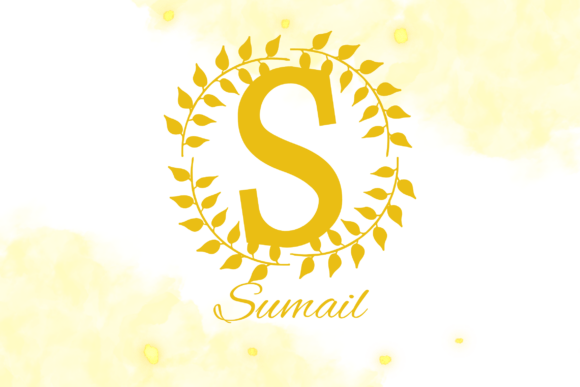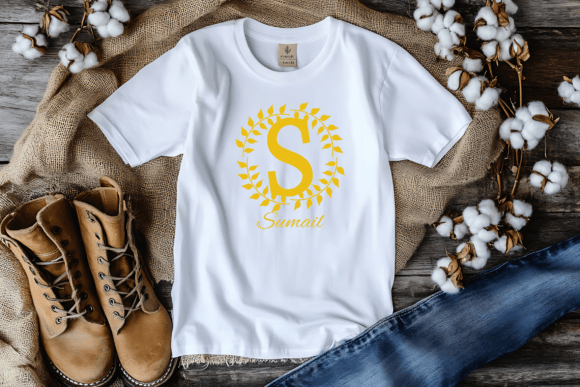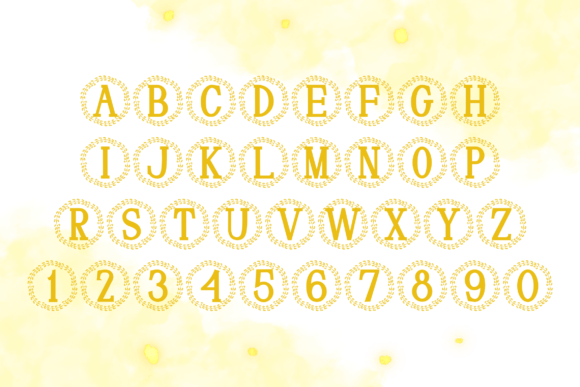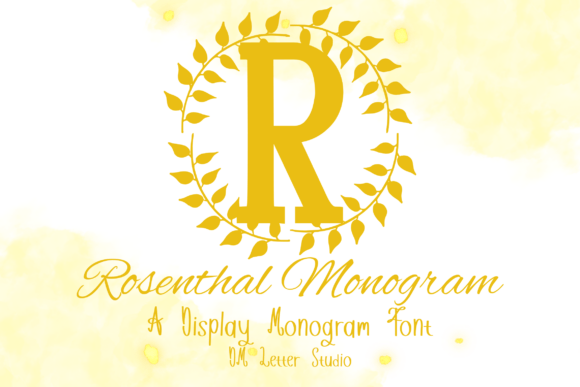
Introduction to Rosenthal Monogram Font
Rosenthal Monogram is an elegant serif font crafted especially for classic monogram designs.
With graceful letterforms and delicate curves, it brings timeless elegance to personal and professional projects This monogram font is ideal for wedding invitations, luxury branding, premium packaging, signage, and gifts that need a sophisticated touch.
Key Features of Rosenthal Monogram Font
Why Choose Rosenthal Monogram Font?
Rosenthal Monogram Font offers exceptional quality and versatility, making it a valuable addition to your design toolkit. Whether you’re creating for personal projects or commercial use, Rosenthal Monogram Font delivers professional results.